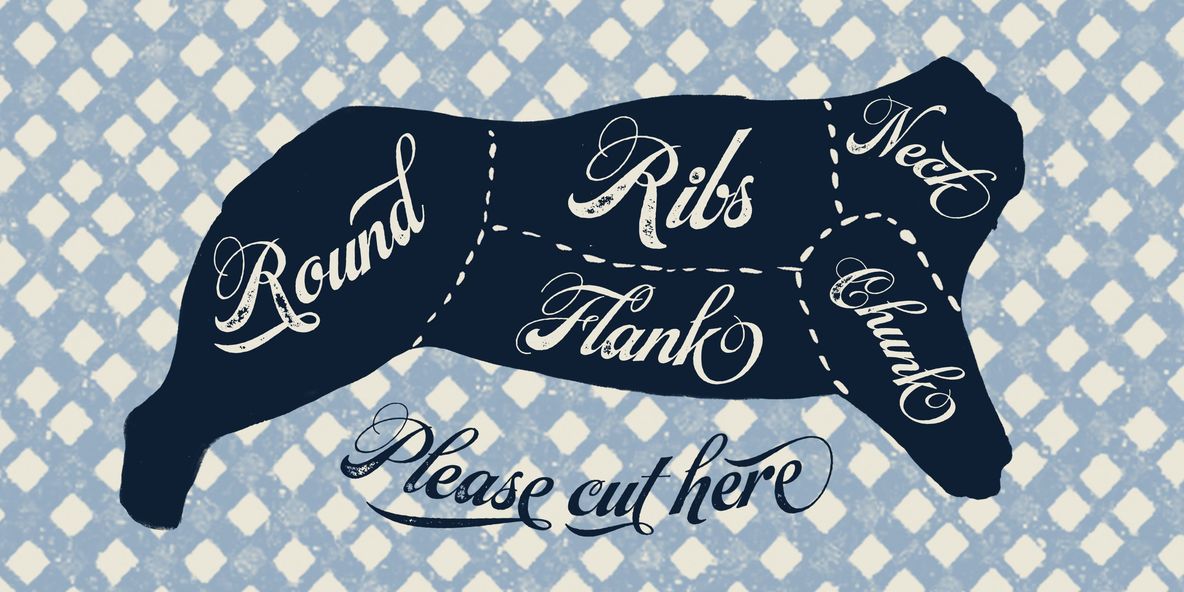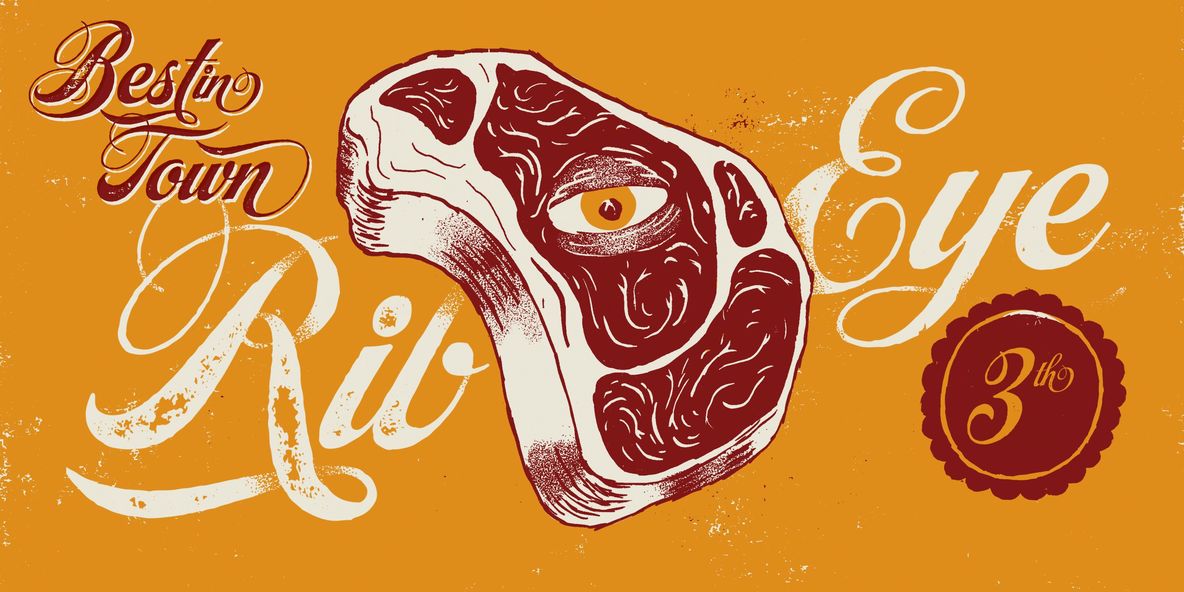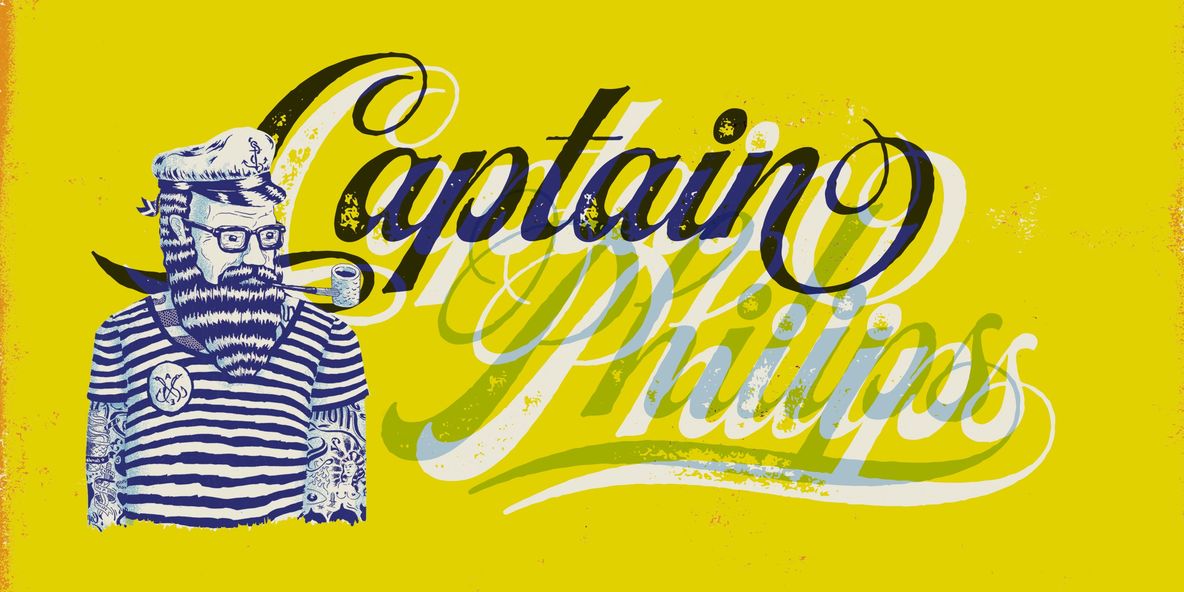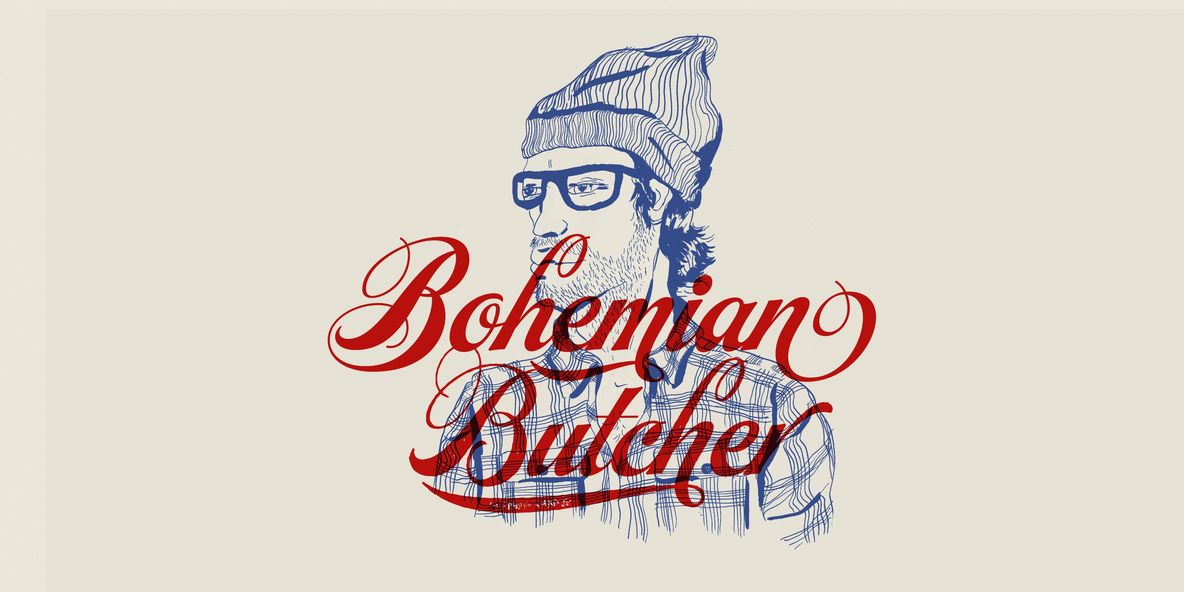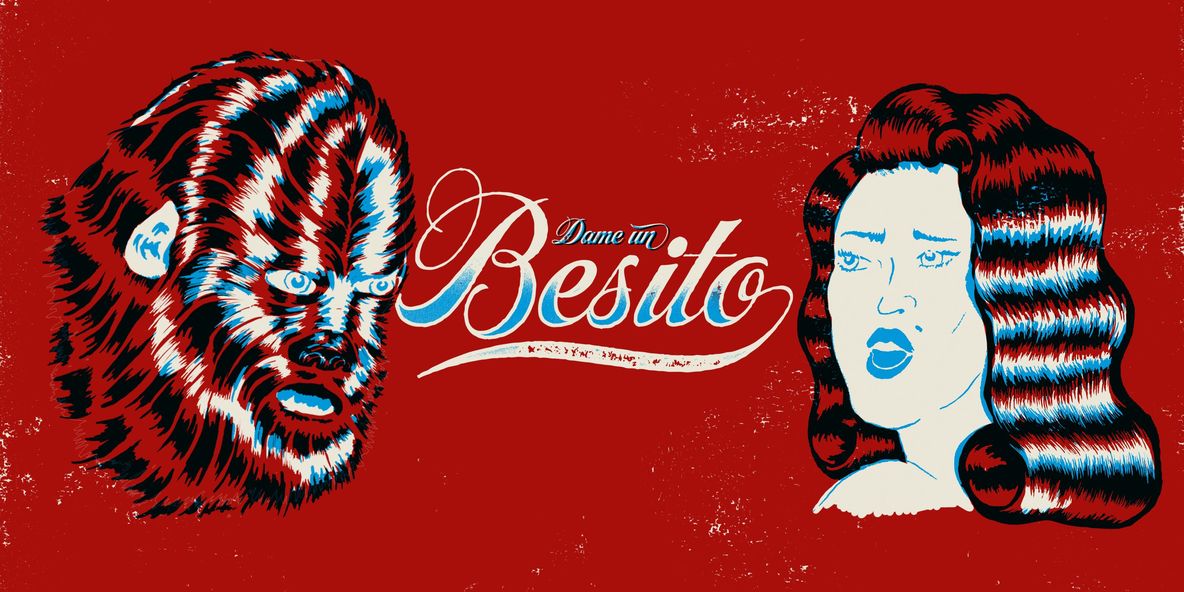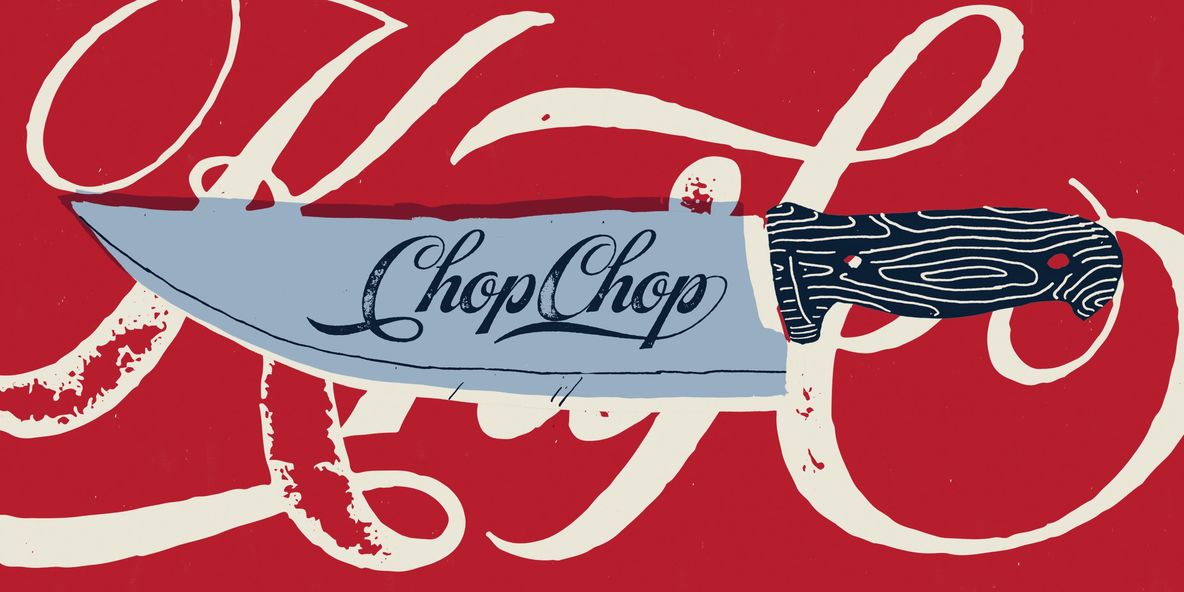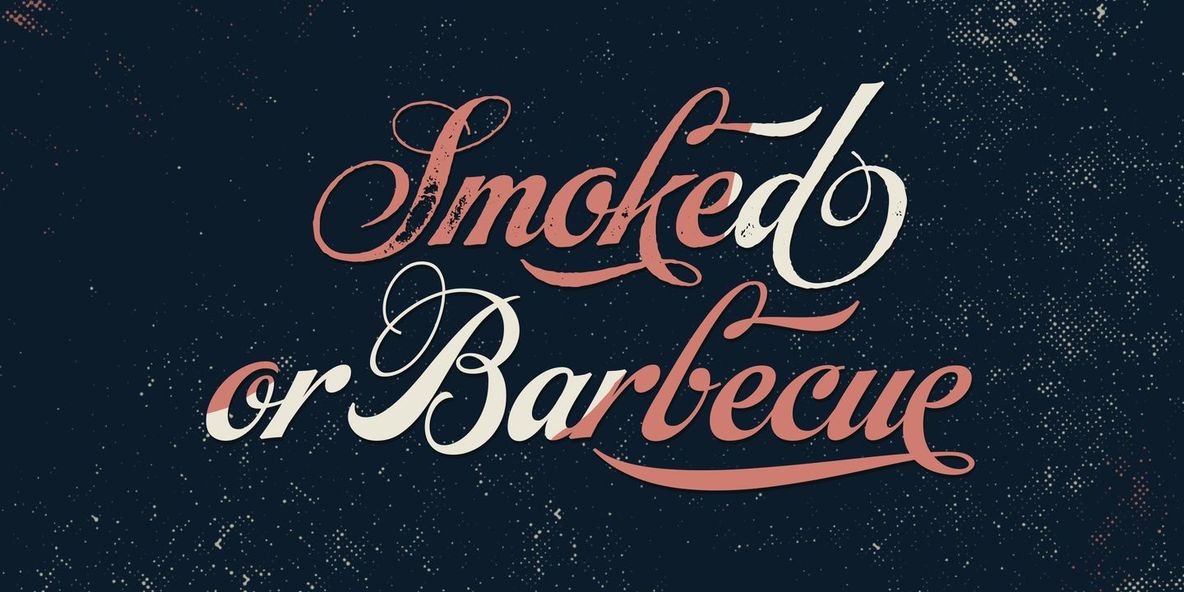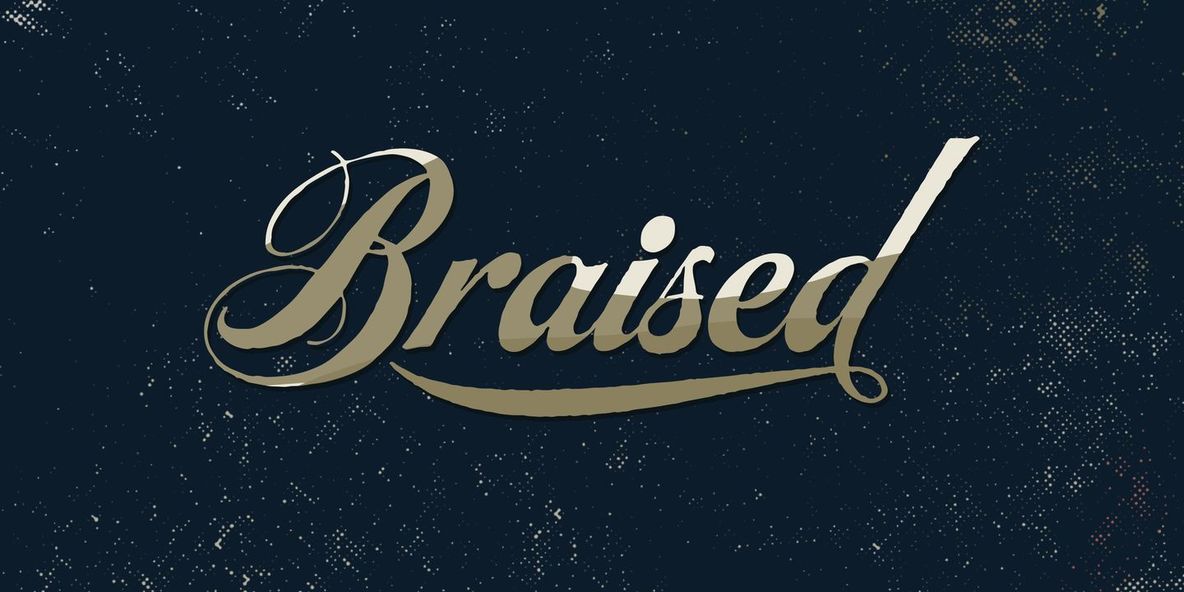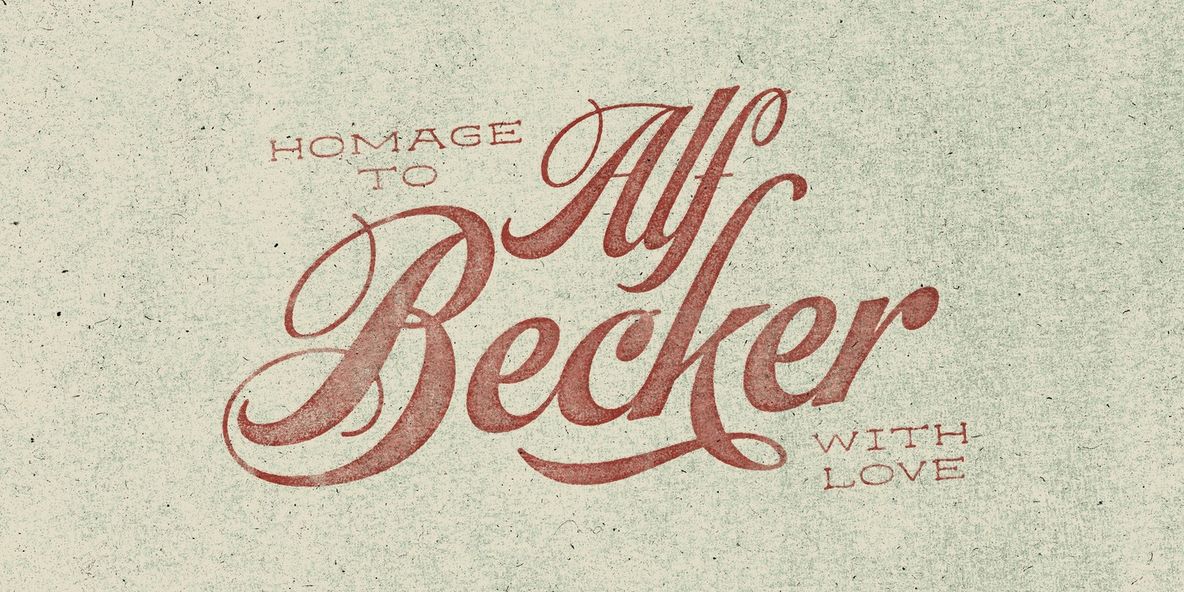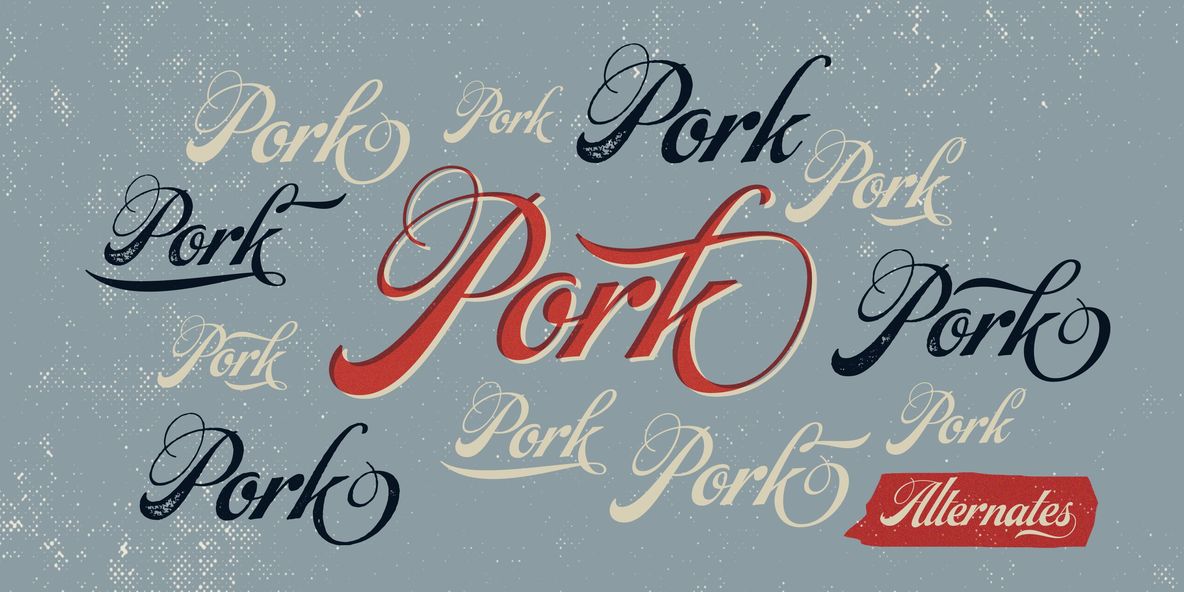
Steak Font
Here I am, once again digging up 60-year sign lettering and trying to reconcile it with the typography of my own time. The truth is I've had this particular Alf Becker alphabet in my sights for a few years now. But in the typical way chaos shuffles the days, Buffet Script and Whomp won the battle for my attentions way back when, then Storefront beat the odds by a nose a couple of years ago. Nevertheless, revisiting Alf Becker's work is always a breath of fresh air for me, not to mention the ego boost I get from confirming that I can still hack my way through the challenges, which is something I think people ask themselves about more often as they get older.
You can never tell what may influence your work, or in this case remind you to dig it out of dust drawers and finally mould it into one of your own experiences. On my recent visits to the States and Canada, I noticed that quite a few high-end steakhouses try their best to recreate an urban American 1930s atmosphere. This is quite evident in their menus, wall art, lighting, music, and so on. The ambience says your money is well spent here, because your food was originally choice-cut by a butcher who wears a suit, cooked by a chef who may be your neighbour 20 minutes from downtown, and delivered by a waitress who can do the Charleston when the lights dim and who just wouldn't mind laughing with you over drinks at the bar later.
So Steak is just that, a face for menus and wall art in those places that see themselves in the kind of jazzy, noirish world where one-liners rule and exclamation points are part of a foreign language.
As is usual with my lettering-inspired faces, there is very little left of the original Alf Becker alphabet. Of course, the challenges present in bringing typographic functionality to what is essentially pure hand lettering gives the spirit of the original art a hell of a rollercoaster ride. But I think that spirit survived the adventure, and may in fact be even somewhat magnified here. This font is over 850 glyphs. It's loaded with ligatures, swashes, ending forms, alternates, ascender and descender variations, and extended Latin language support.
Steak comes in 3 versions. According to your taste you can choose Barbecue, Braised or Smoked. It’s up to you!